Over 20 Gothic Fonts in the Zazzle Editor
To help out my fellow gothic Zazzle designers, I made an infographic of some of the goth fonts that Zazzle has in its editor.
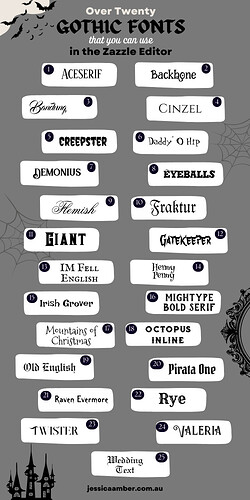
I’d also add to this :
• Cloister Black
• Pirates
• Black Letter Outline
• Fear
• Filth
• Just be cool
• Phoenix Grunge
• Thunder Grunge
• Magnifica